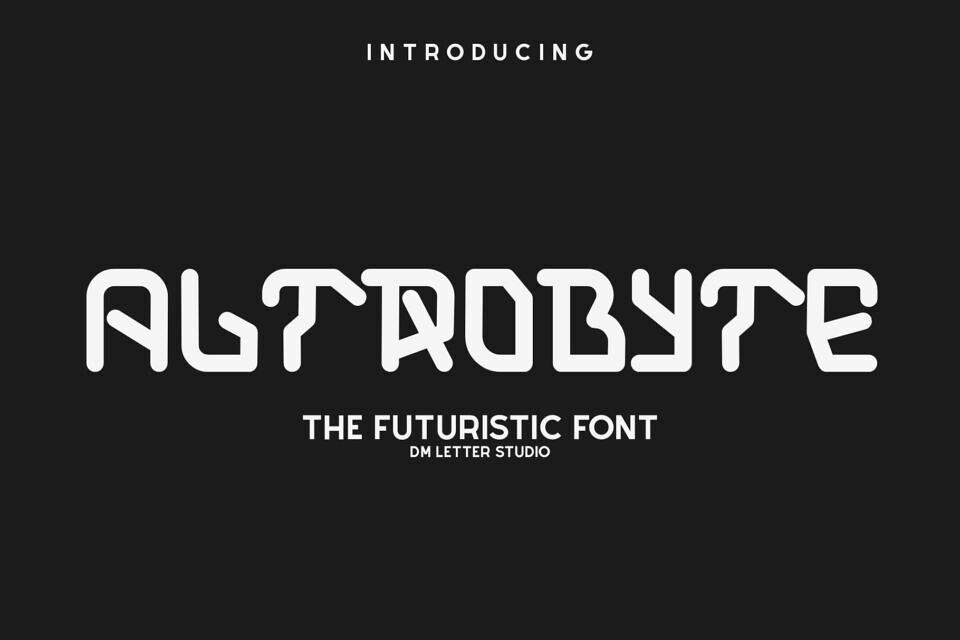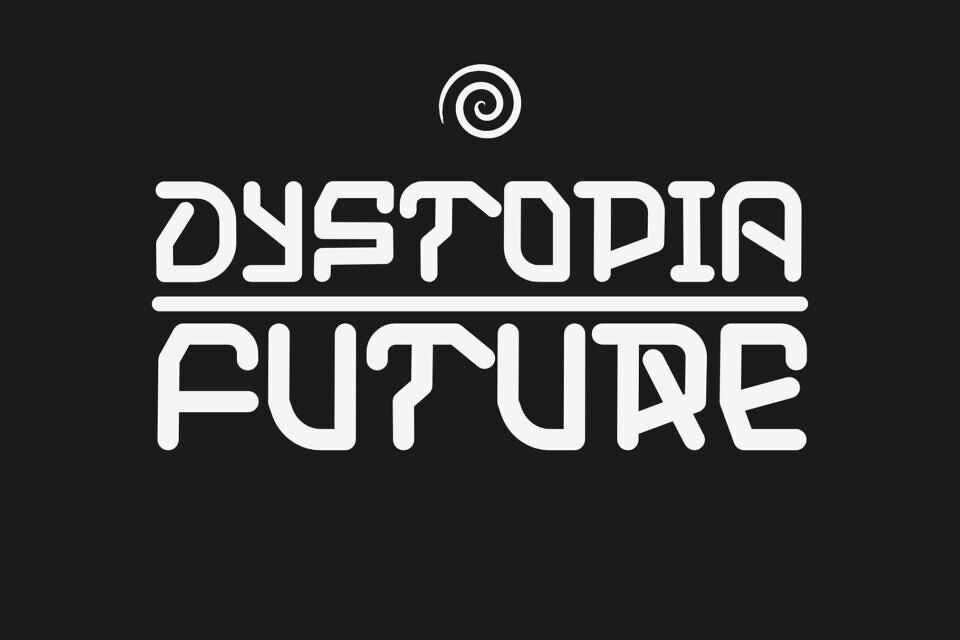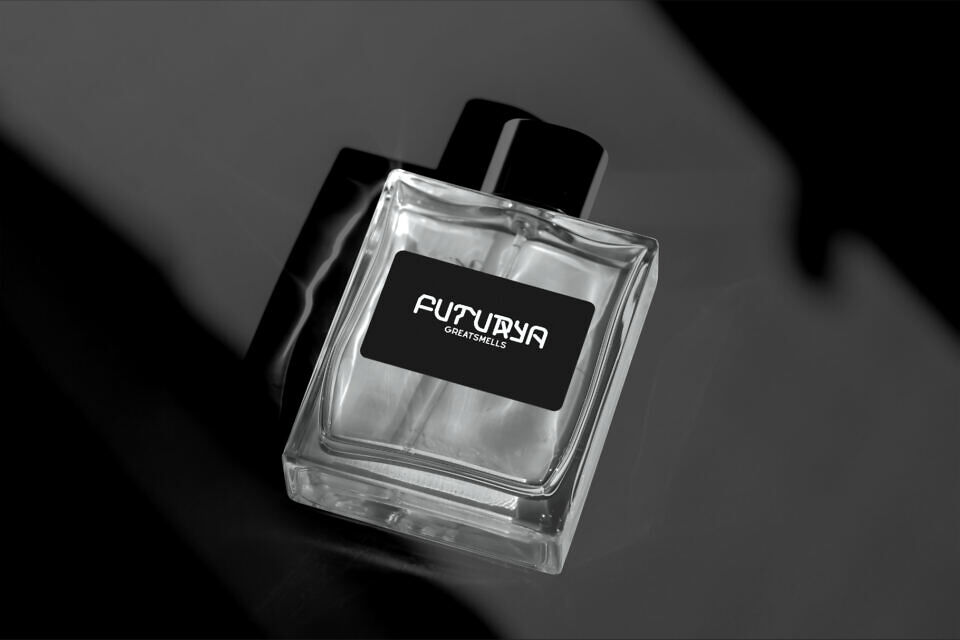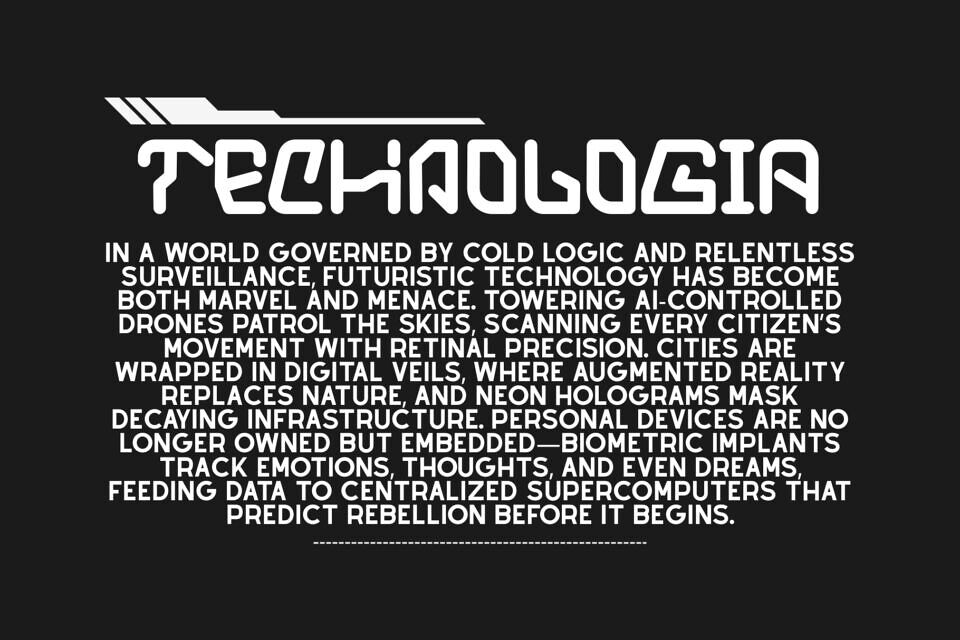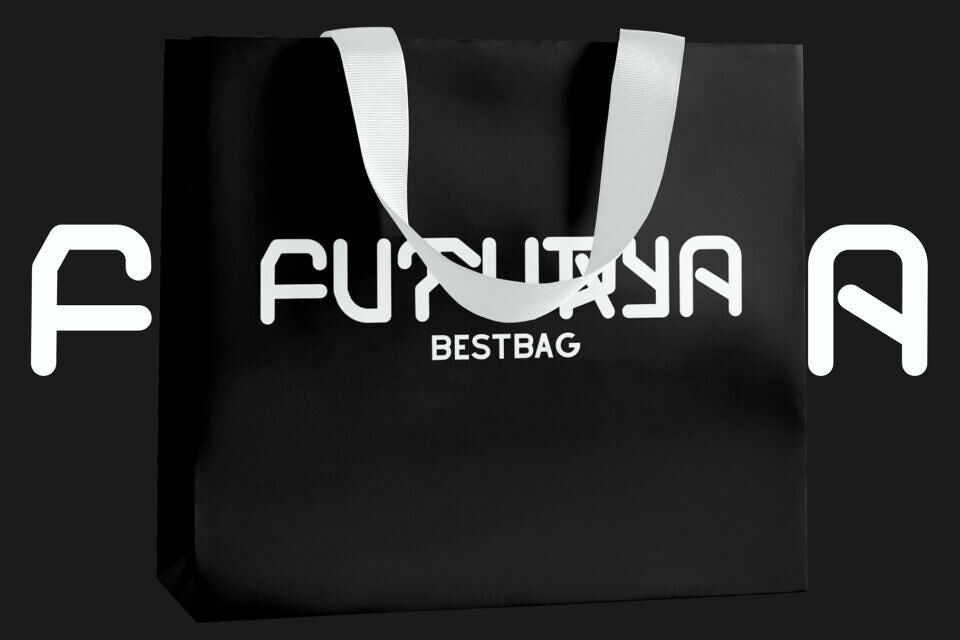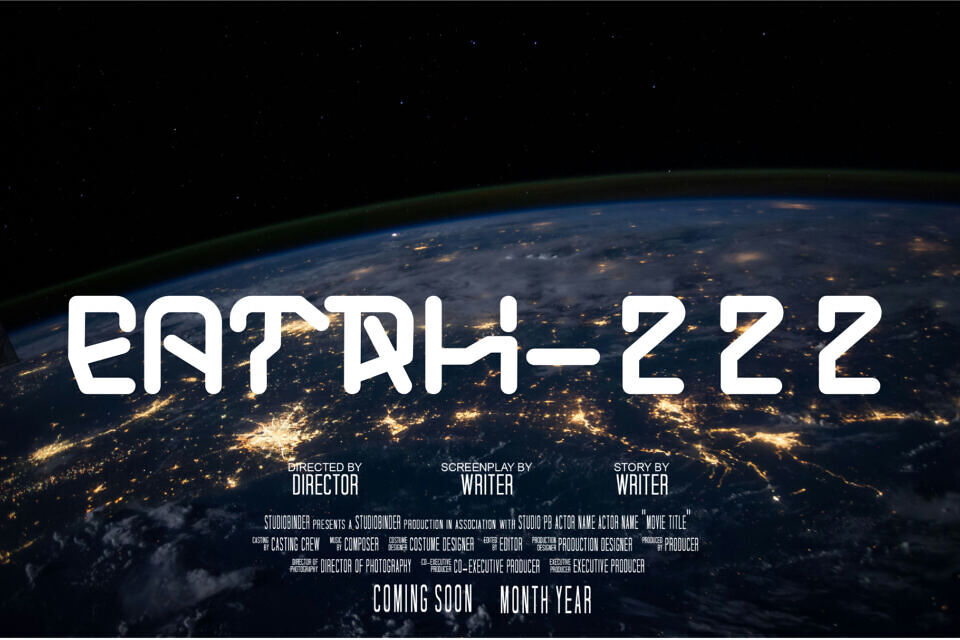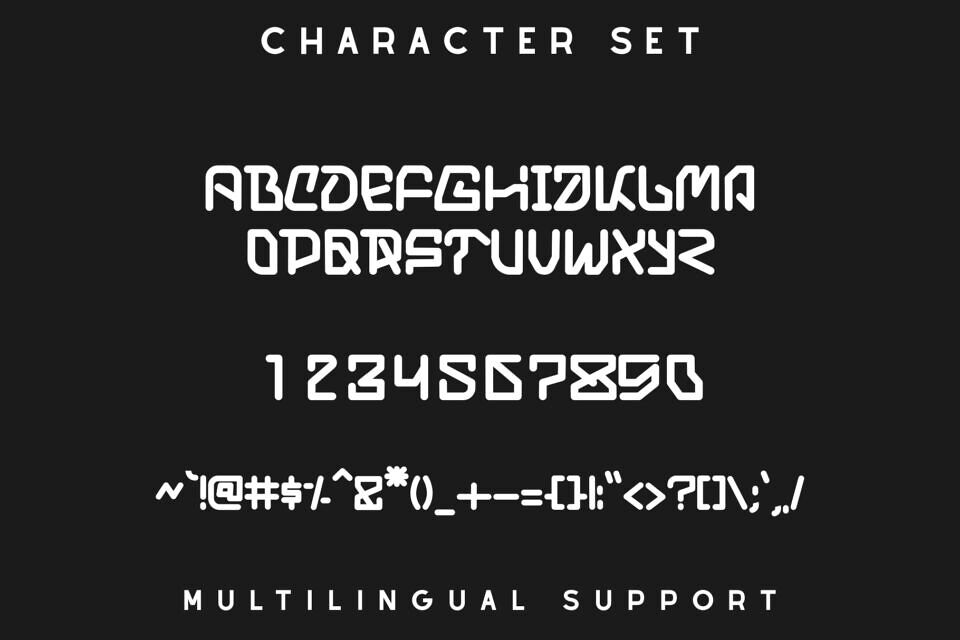
Altrobyte Font
Altrobyte is a bold, digital-era display font crafted for tech-savvy designs. Featuring blocky characters with pixel-inspired edges and futuristic styling, Altrobyte feels right at home in game UIs, glitch posters, and sci-fi branding. Its strong, angular construction ensures your titles stand out with retro-tech flair while remaining readable and impactful.
Features:
• Pixel-Tech Aesthetic: Inspired by classic arcade fonts and digital grids, ideal for tech and gaming visuals.
• All-Caps Design: Uniform uppercase letters for a strong, cohesive appearance.
• Display Ready: Best used for logos, headlines, posters, and branding materials.
Designed by: DM Letter Studio